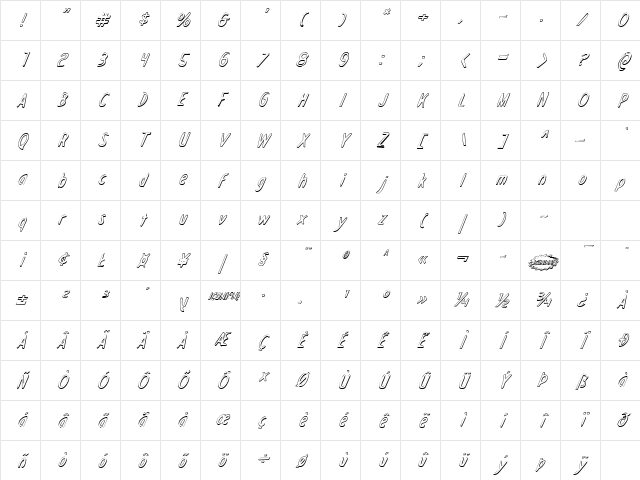
Drafting Table 3D Italic Italic Free Font
Drafting Table 3D Italic Italic
Design Context for Drafting Table 3D Italic
Drafting Table 3D Italic is a composed and adaptable typeface that performs quietly and consistently across a wide range of design contexts. The slanted form adds forward momentum and visual energy.
Pro Tip: Use Drafting Table 3D Italic for emphasis, pull quotes, and subheadings where its slanted energy can add rhythm to the layout.